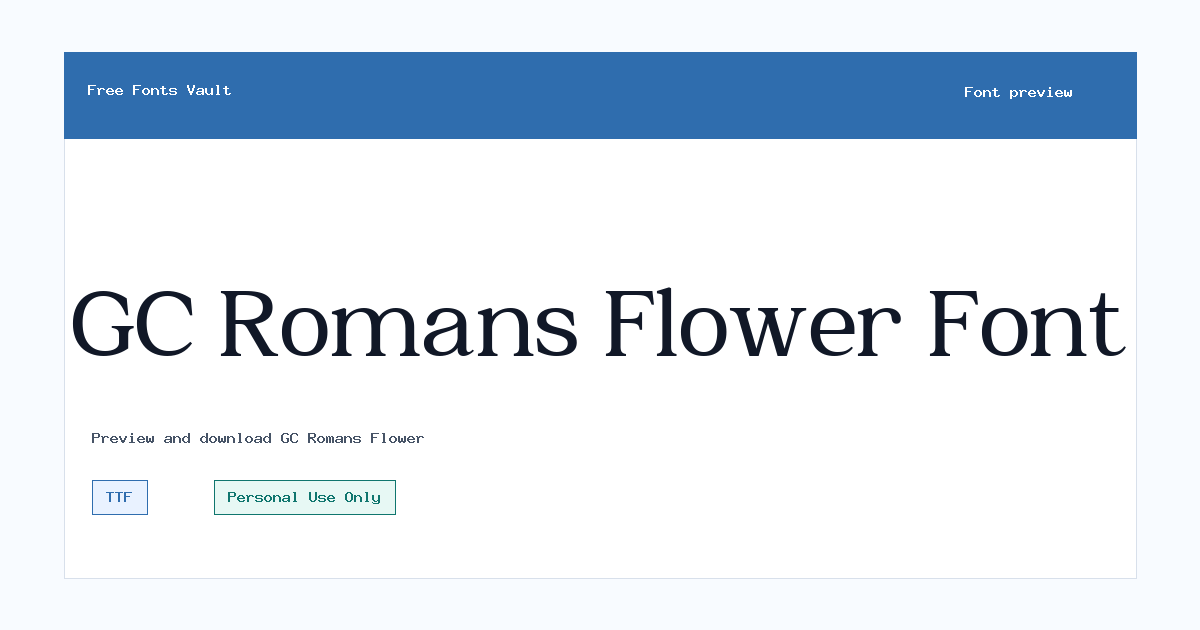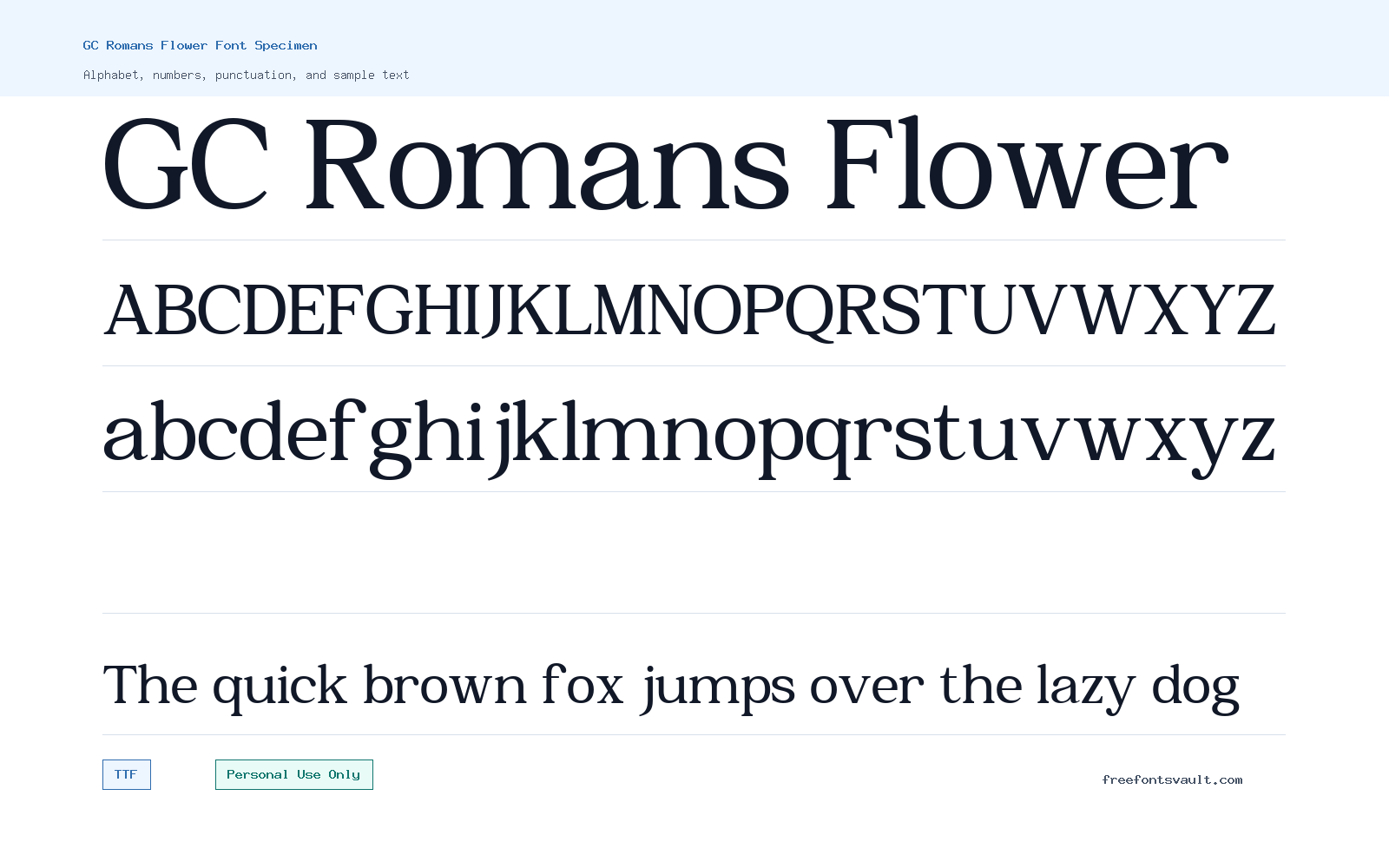
GC Romans Flower
GC Romans Flower is a decorative serif font family with a floral, ornamental character. It is best approached as a display typeface: use it where the lettering can be noticed, not buried in long reading text.
GC Romans Flower has a serif structure with a more expressive, decorative feel than a plain text face. The family name points to a floral treatment, so it suits designs that need a softer, crafted, or ornamental mood without relying on script lettering. Because the font comes in regular and italic styles, you can create simple contrast inside short headings, names, invitations, labels, and social graphics while keeping the same family voice.
For the best result, test GC Romans Flower in the preview tool with the exact words you plan to use. Decorative serif fonts can look very different depending on letter combinations, capitalization, spacing, and size. Try a short title in all caps, then compare it with title case or mixed case. If the floral detail feels busy at small sizes, reserve it for the main word or headline and use a cleaner serif or sans serif for supporting information. This keeps the design readable while still letting the font carry the personality.
- Decorative serif look suited to short display text rather than long paragraphs.
- Invitations, greeting cards, name designs, and decorative headings.
- Boutique-style labels, social posts, quote graphics, and poster titles.
Use GC Romans Flower at medium to large sizes where its decorative serif details can breathe. For layouts with dates, addresses, menus, or body copy, pair it with a simpler font and keep GC Romans Flower for the main title or accent words. Check spacing carefully in the italic style, especially around letters with angled forms, and avoid using too many decorative effects on top of the font. Shadows, outlines, and heavy textures can reduce clarity if the letters already have ornamentation. Before downloading, preview names, headlines, and short phrases so you can judge readability with your own wording.
What kind of designs work best with GC Romans Flower?
It works best in short, decorative text such as invitations, titles, labels, quote images, and greeting-card style layouts. It is less suitable for dense paragraphs or small interface text.
Can I use the italic style for body text?
It is better to use the italic style as an accent. For long reading, pair GC Romans Flower with a simpler, more neutral font that stays clear at smaller sizes.